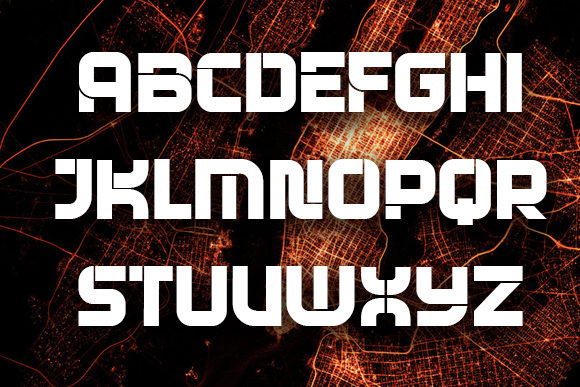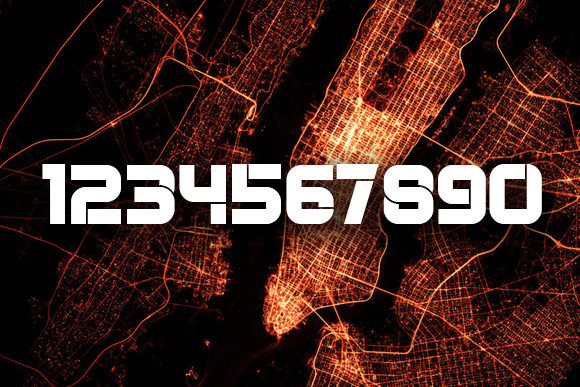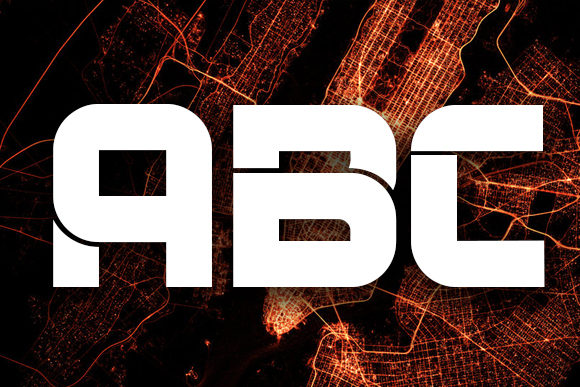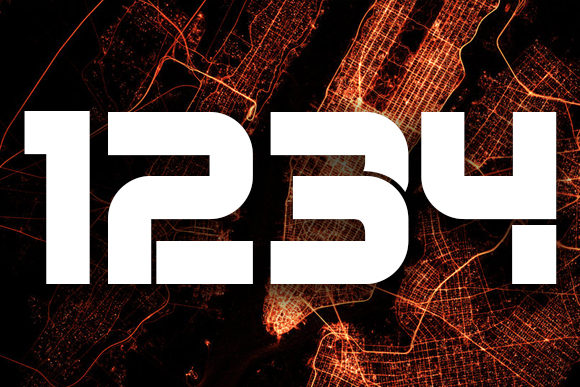
Introduction to Locator Font
As a designer, have you ever found yourself stuck on a creative project, desperately searching for the perfect font to elevate your design? You’re scrolling through font libraries, trying out different styles, but nothing seems to capture the essence of your idea. That’s when you stumble upon the Locator Font – a game-changing, high-quality font that’s about to take your design to the next level.
About Locator Font
With its sleek, techno style, the Locator Font is perfect for headlines, t-shirts, banners, and much more. Its versatility and high-quality design make it a valuable resource for designers, offering endless possibilities for creative expression. Plus, with a transparent background, you can easily integrate it into your design without any distractions.
Unlock the Potential of Locator Font
Key Features of Locator Font
- High-quality, vector-based font with a transparent background, ideal for creative projects requiring a clean and minimalist design.
- Perfect for use in logos, icons, and other design elements due to its simple yet distinctive design.
- Designed to be a versatile design resource, suitable for a wide range of creative projects, from branding to digital art.
Honest Review: Locator Font
Here’s what I love about this font: ✨ High-quality glyphs that render beautifully on both light and dark backgrounds. ✨ Transparent background options that make it easy to blend with any design. ✨ Great for titles and headings due to its modern, clean aesthetic.
Here are some features that I appreciate:
- High-resolution images that maintain their clarity even when scaled up.
- Wide range of language support, making it suitable for global projects.
However, I did encounter a few limitations: ⚠️ Limited customization options, which might not be ideal for designers who like to fine-tune their fonts. ⚠️ Not as extensive a character set as some other fonts, which could be a drawback for projects that require a lot of special characters.